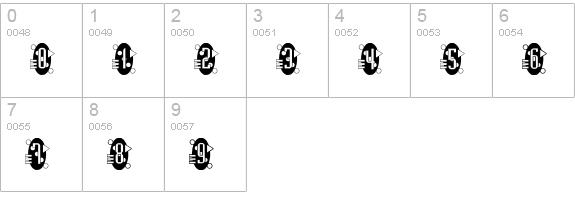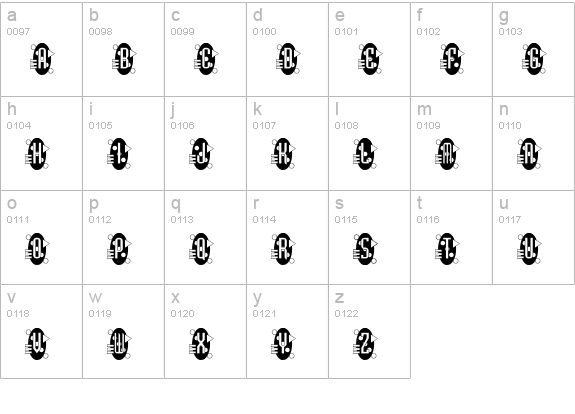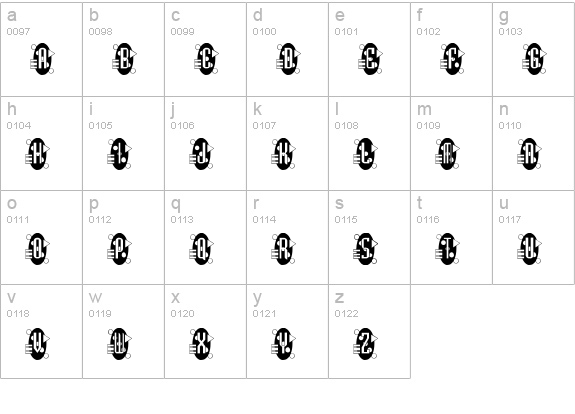
Decorette Font Details
Decorette font is a whimsical and charming typeface that adds a touch of playfulness to any design project. With its elegant curves and intricate details, this font is perfect for creating eye-catching headlines, invitations, and social media graphics. The decorative elements in Decorette font make it stand out from the crowd and give your designs a unique and artistic flair. And the best part? Decorette font is available for free download at FontsMarket.com! You can easily add this beautiful font to your collection and use it in both personal and commercial projects without any restrictions. So why wait? Download Decorette font today and let your creativity shine!